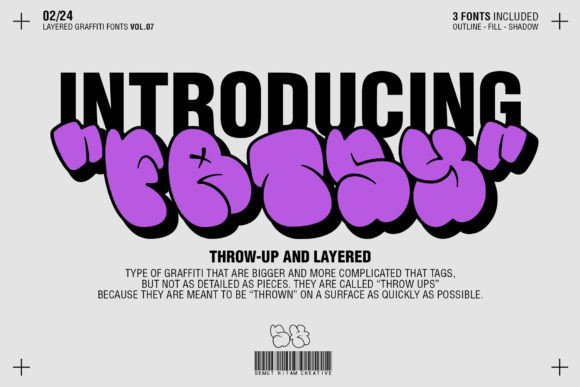
Discover the Bold and Audacious Personality of Fatsy Font
In the realm of digital typography, few fonts manage to capture the essence of street art as effectively as Fatsy. This graffiti-style font, with its distinct layered charm, brings the raw, unbridled energy of the streets right to your digital canvas. Drawing inspiration from the puffiness of bubble letters commonly seen in true graffiti art, Fatsy is a bold and audacious font designed to make a statement.
The Inspiration Behind Fatsy
Fatsy’s design is deeply rooted in the graffiti art movement, which is characterized by its vibrant, daring, and often unconventional approach to art. Graffiti art has long been a means of self-expression for artists looking to push boundaries and challenge the status quo. Fatsy captures this rebellious spirit, offering a font that is not only visually striking but also rich in personality.
The puffiness of bubble letters, a staple of graffiti art, is a key element that Fatsy incorporates into its design. This style of lettering is known for its rounded, three-dimensional appearance, which gives it a lively and dynamic feel. By emulating this style, Fatsy manages to convey a sense of energy and movement, making it perfect for designs that require a bold and attention-grabbing approach.
The Distinctive Features of Fatsy
One of the standout features of Fatsy is its thick outlines, which lend a full-bodied, fat aesthetic to any text. This distinctive characteristic not only gives Fatsy its name but also exudes prominence and assertiveness. The thick outlines ensure that the text stands out, making it ideal for headlines, titles, and any design element that needs to command attention.
Another key feature of Fatsy is its versatility in layering. The font’s design allows for easy layering, which can save you from the complex tasks of editing your artwork. This versatility gives you more freedom to express your creativity, as you can experiment with different layers and textures to achieve the desired effect. Whether you’re working on a digital project or a print design, Fatsy’s layering capabilities make it a flexible and practical choice.
Fatsy – The Perfect Accomplice to All Kinds of Fonts
Fatsy’s bold and audacious personality makes it the perfect complement to a wide range of fonts. Its eclectic and advanced appeal can elevate any design, adding a fresh and dynamic touch. Whether you’re pairing Fatsy with a sleek sans-serif for a modern look or with a decorative script for a more vintage feel, this font’s versatility ensures that it will enhance your design without overpowering it.
The comprehensive set of characters included in Fatsy – funky uppercase, lowercase letters, numbers, punctuation, and support for multiple languages – makes it a diverse and dynamic font. This extensive character set means that you can use Fatsy for a variety of projects, from branding and advertising to web design and social media graphics.
Using Fatsy in Your Designs
So, how can you make the most of Fatsy in your designs? Here are a few ideas to get you started:
- Headlines and Titles: Fatsy’s bold and attention-grabbing style makes it perfect for headlines and titles. Use it to create striking headlines that draw the reader in.
- Branding and Logo Design: Fatsy’s unique personality can help your brand stand out. Use it to create a memorable logo or brand identity that reflects your company’s values and style.
- Social Media Graphics: Fatsy’s eclectic and advanced appeal makes it ideal for social media graphics. Use it to create eye-catching posts and stories that engage your audience.
- Advertising: Fatsy’s bold and assertive style makes it perfect for advertising. Use it to create striking ad copy that grabs the reader’s attention.
Fatsy is a bold and audacious font that brings the raw energy of street art to your digital canvas. With its thick outlines, versatile layering capabilities, and comprehensive character set, Fatsy is the perfect choice for designers looking to add a fresh and dynamic touch to their projects. Whether you’re working on a digital project or a print design, Fatsy is sure to elevate your designs and make a lasting impression.
Key Features of Fatsy:
- Graffiti-style font with a distinct layered charm
- Thick outlines for a full-bodied, fat aesthetic
- Versatile layering capabilities for easy editing
- Comprehensive character set, including funky uppercase, lowercase letters, numbers, punctuation, and support for multiple languages
- Eclectic and advanced appeal, perfect for pairing with a wide range of fonts
Get Ready to Elevate Your Designs with Fatsy